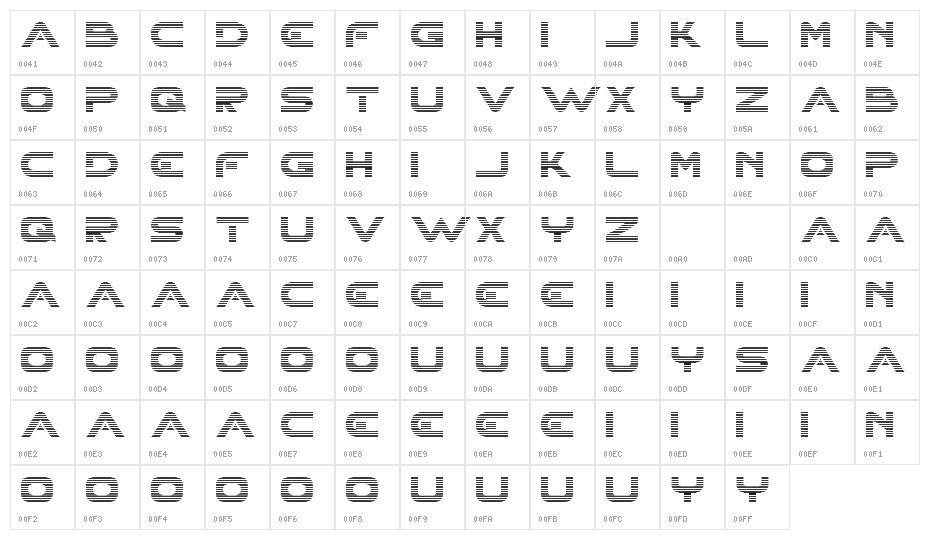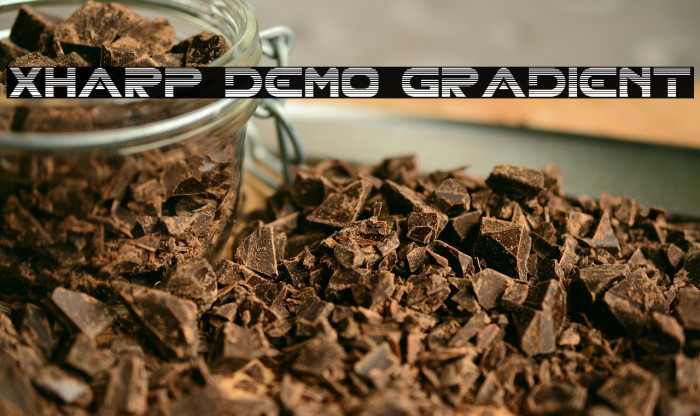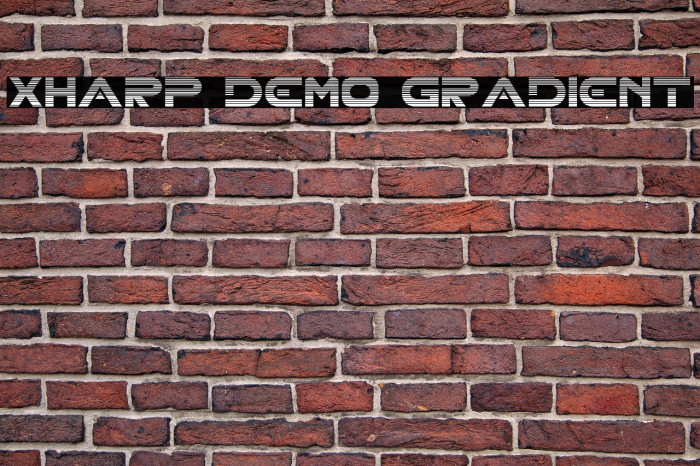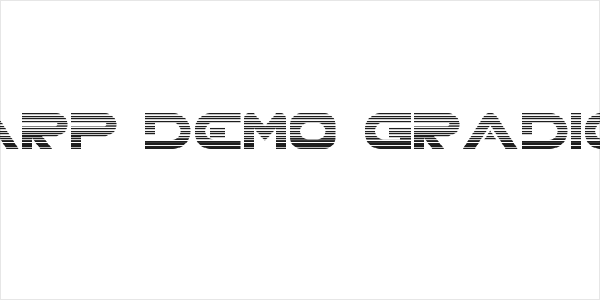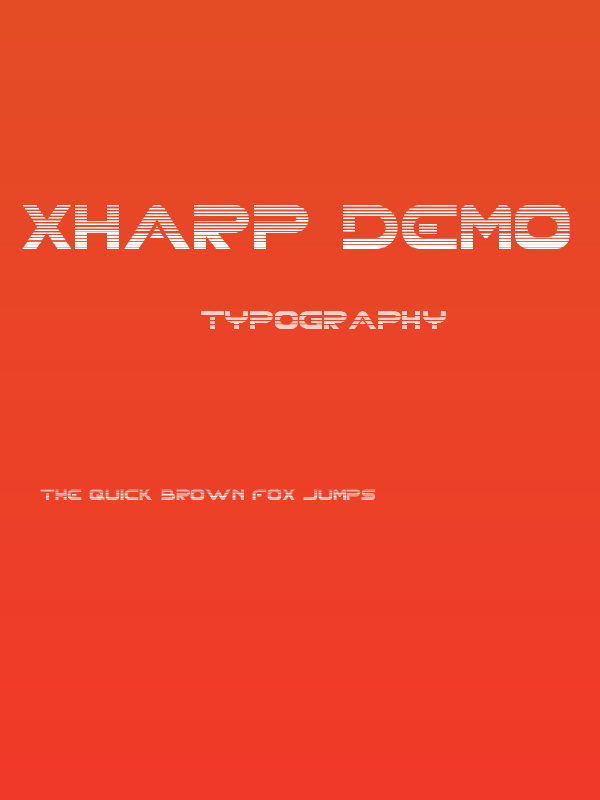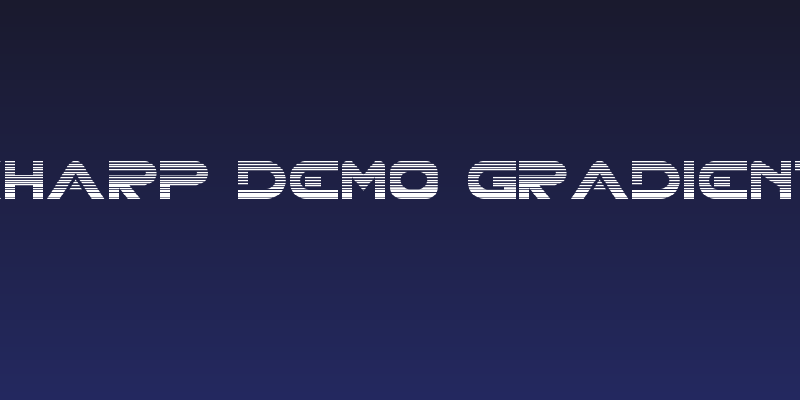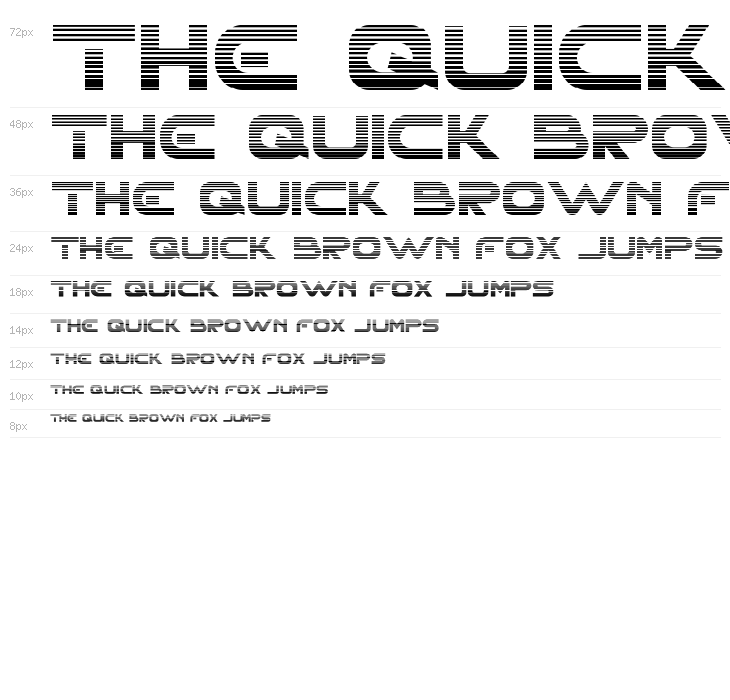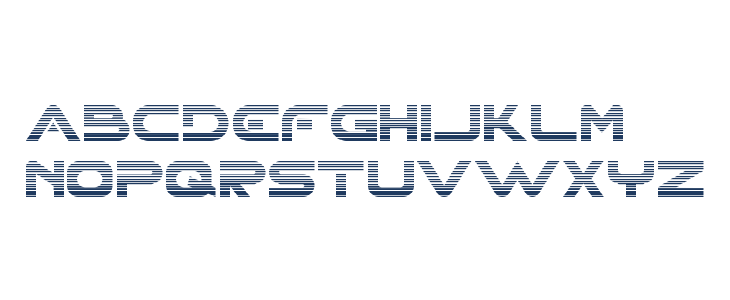
XHARP Demo Gradient Font
XHARP Demo Gradient Description
This font features a futuristic and dynamic design characterized by horizontal lines that create a gradient effect across each character. The uppercase letters are bold and angular, with a distinct geometric style that gives a sense of movement and modernity. The consistent use of parallel lines within each letterform adds a unique texture and depth, making it stand out in any design. The font's structure is clean and precise, with sharp edges and a uniform width that maintains readability while offering a visually striking appearance.
| Proposed Projects | Ideal for technology branding, sci-fi posters, video game titles, and modern advertising campaigns. |